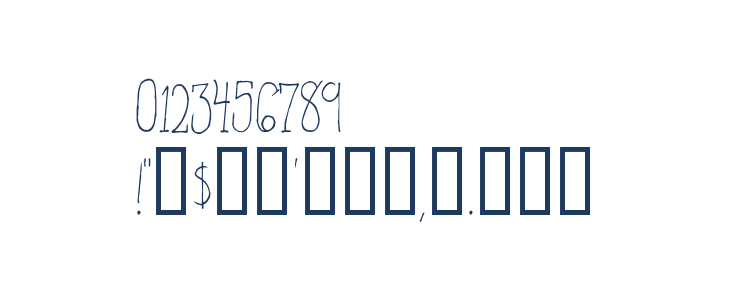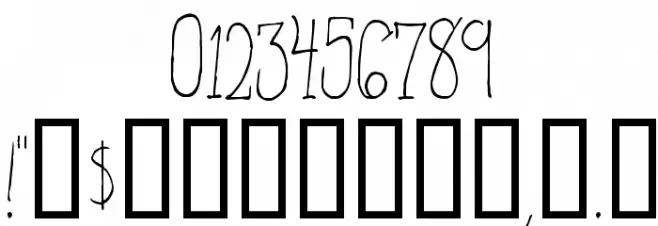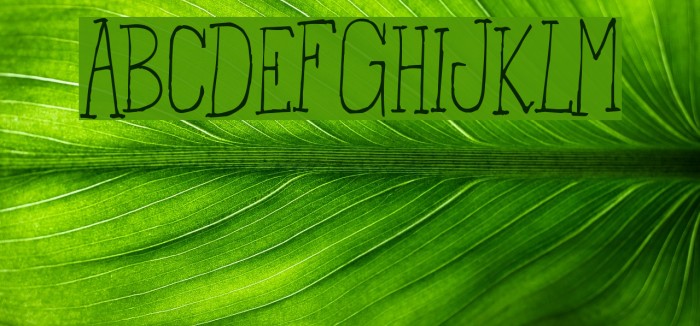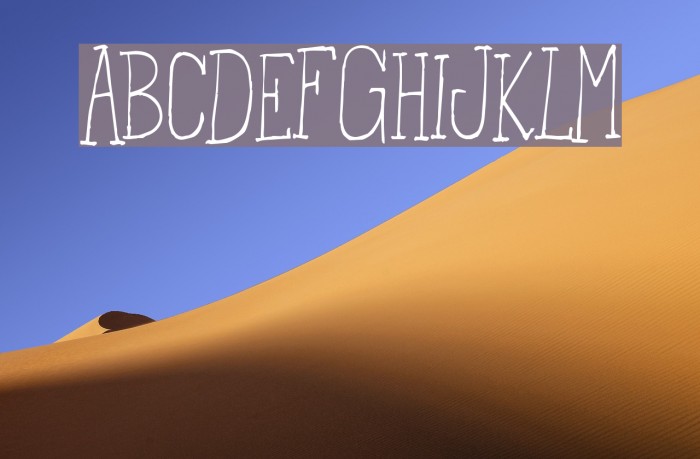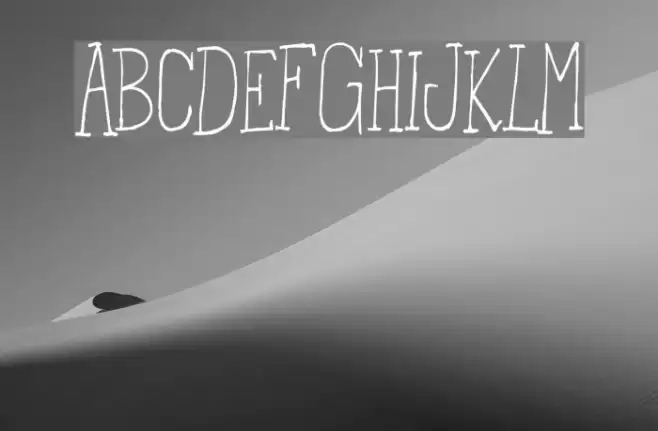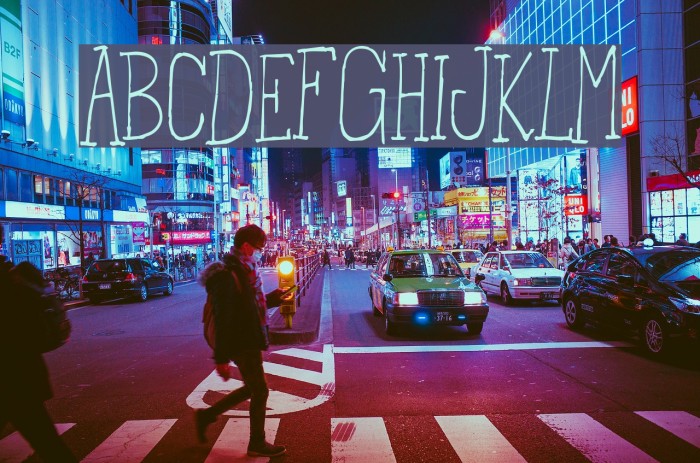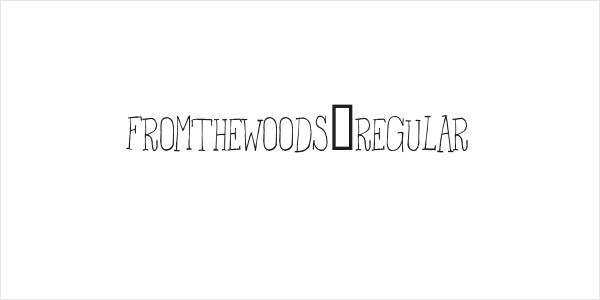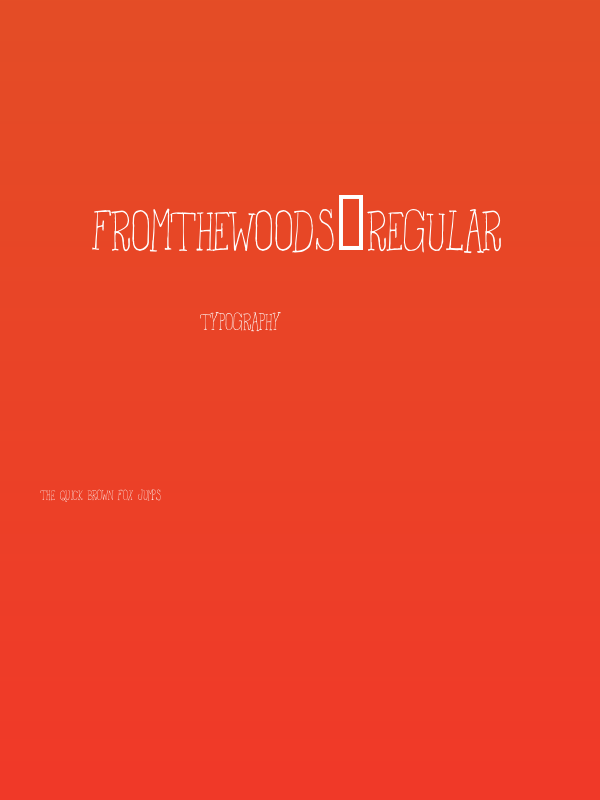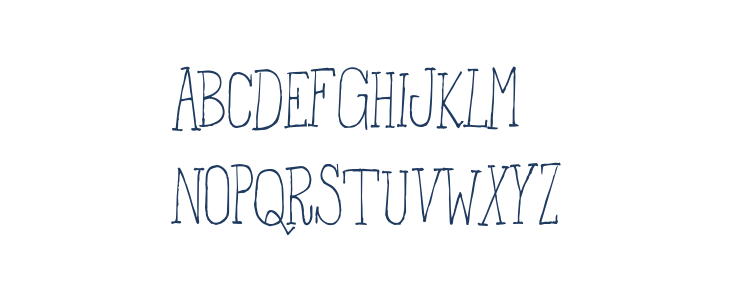
FromtheWoods-Regular Font
FromtheWoods-Regular Description
This font features a whimsical and hand-drawn style, characterized by its tall, narrow letters with a slightly uneven baseline, giving it a playful and organic feel. The strokes are thin with a consistent width, and the characters have a unique, slightly irregular shape that adds to its charm. The uppercase and lowercase letters maintain a cohesive look, while the numerals and special characters complement the overall design. This font's quirky and artistic appearance makes it suitable for creative projects.
| Proposed Projects | Ideal for children's books, greeting cards, artistic posters, and creative branding. |